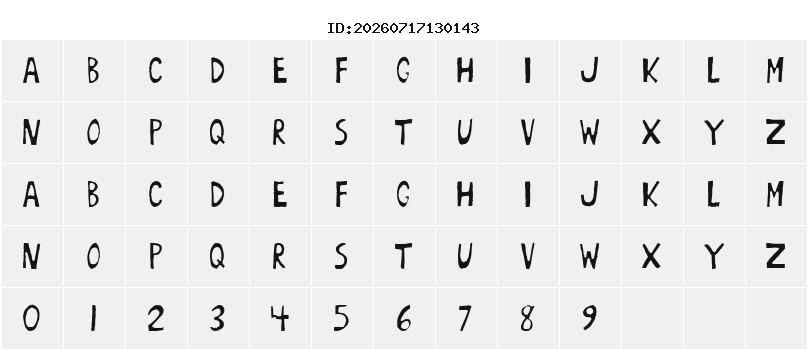
• Font Name: BoArust
• Full Font Name: BoArust beta
About BoArust.ttf
BoArust.ttf is a modern, elegant sans-serif font designed for ultimate readability and visual harmony. Perfect for branding, headlines, web design, and print materials.